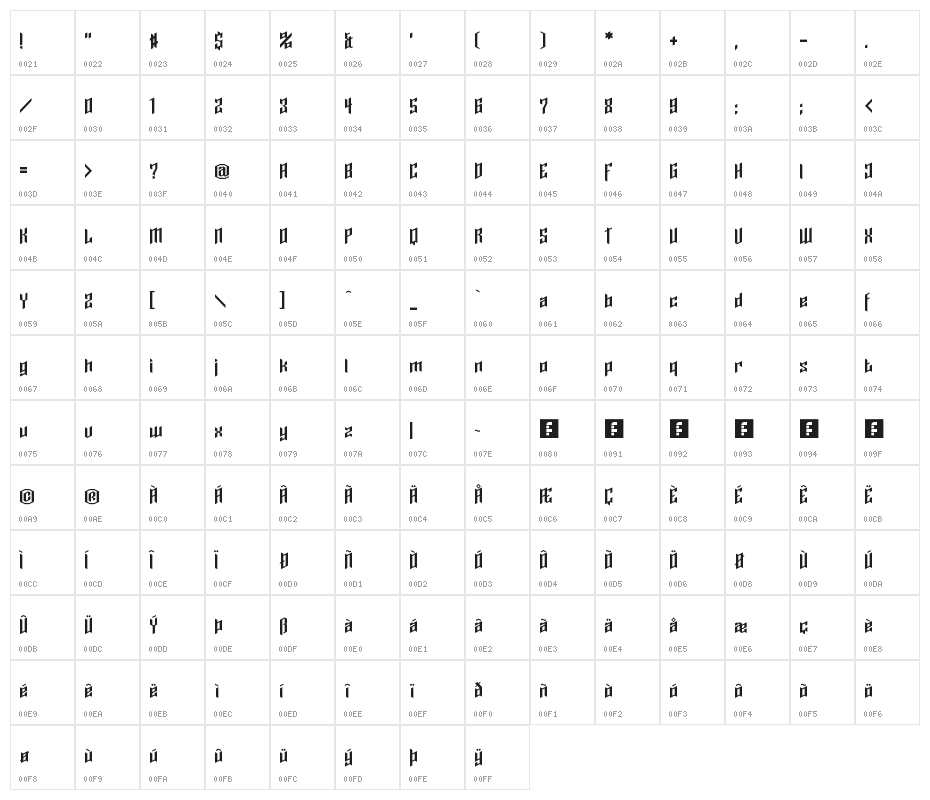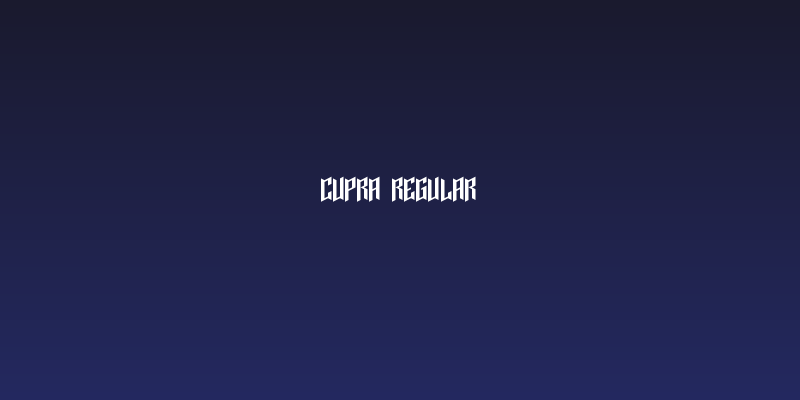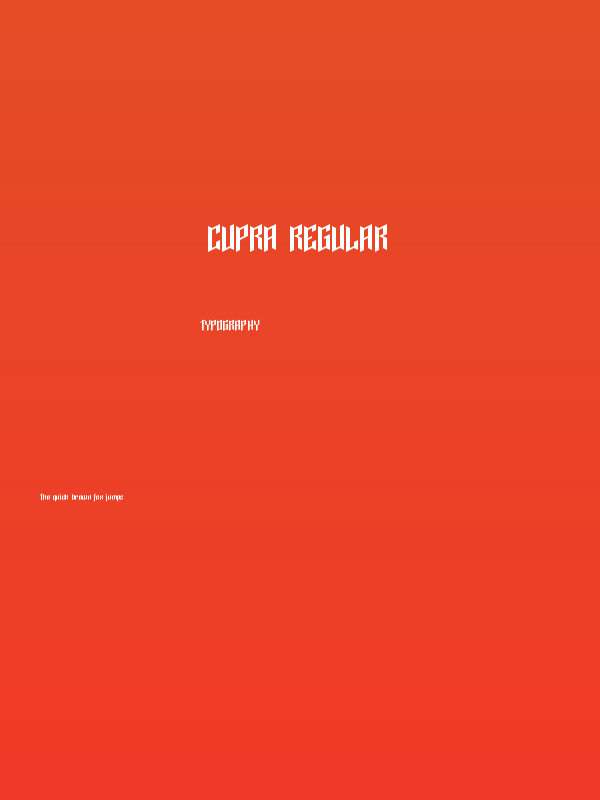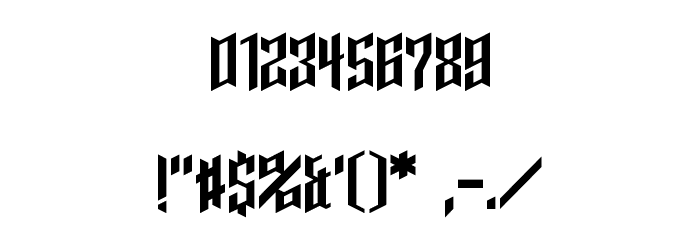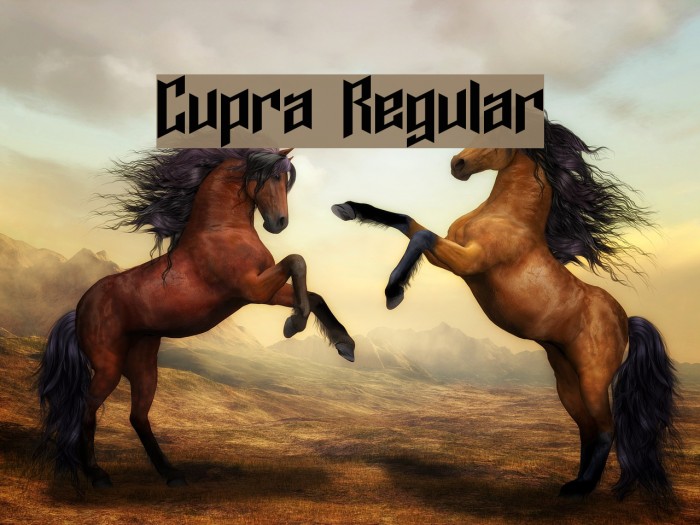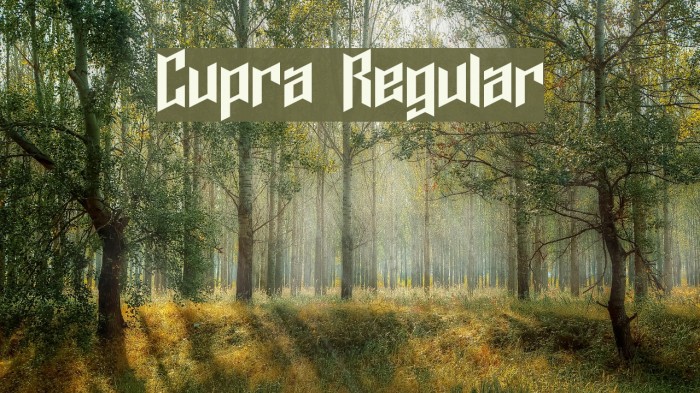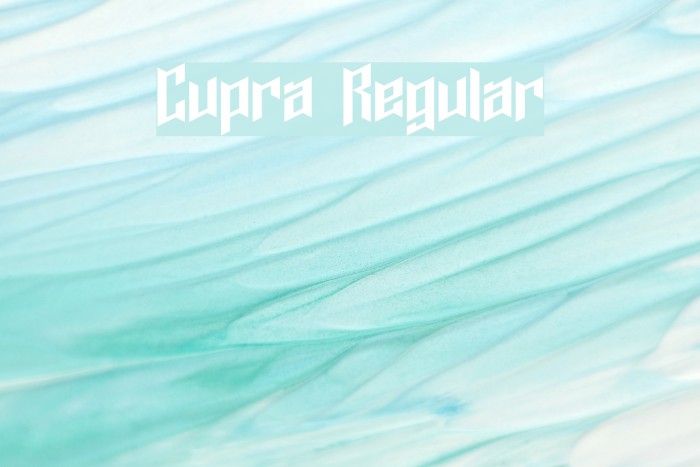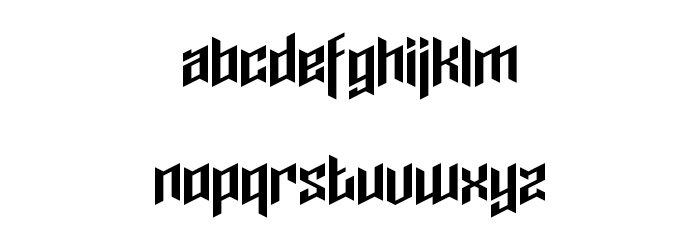
Cupra Regular Font
Cupra Regular Description
This font features a bold and angular design, reminiscent of gothic or blackletter styles. The characters are sharply defined with strong vertical lines and pointed edges, giving it a striking and dramatic appearance. The uppercase letters are particularly tall and imposing, while the lowercase letters maintain a consistent style with slightly more rounded forms. The numerals and special characters follow the same angular theme, ensuring a cohesive look across all glyphs. This font is ideal for creating a powerful visual impact, suitable for projects that require a bold and distinctive typeface.
| Use Case | Logos, Headlines, Posters |
| Proposed Projects | Ideal for branding, posters, album covers, and any project needing a bold, eye-catching typeface. |